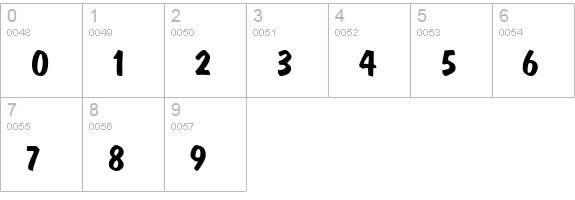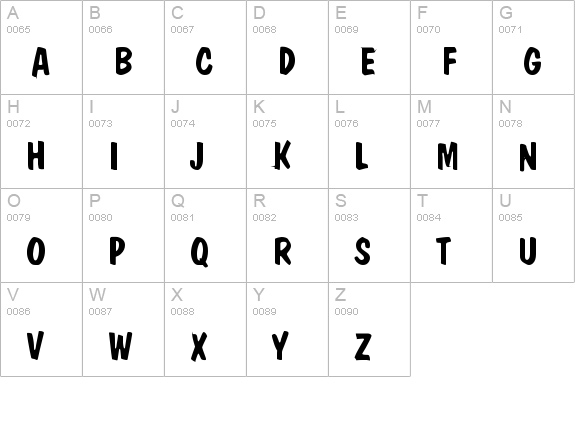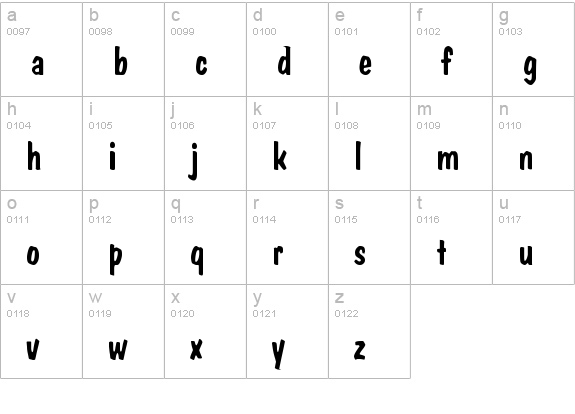
Danto Lite Bold is a strong, high-contrast variant in the Danto typeface family \xE2\x80\x94 well suited to headlines, attention-grabbing titles, and strong calls-to-action.
Danto Lite Bold font is a striking and modern typeface that effortlessly combines elegance with a touch of boldness. Its sleek lines and strong presence make it perfect for headlines, titles, and other attention-grabbing design projects. The font exudes confidence and sophistication, making it a versatile choice for both digital and print media. What's even better is that Danto Lite Bold font is available for free download at FontsMarket.com. This means you can easily add this stylish font to your collection without any cost. Whether you're a professional designer looking for a new addition to your toolkit or a casual user in need of a fresh font for your projects, Danto Lite Bold font is a fantastic choice that won't break the bank. Download it today and elevate your designs with this eye-catching and impactful typeface.